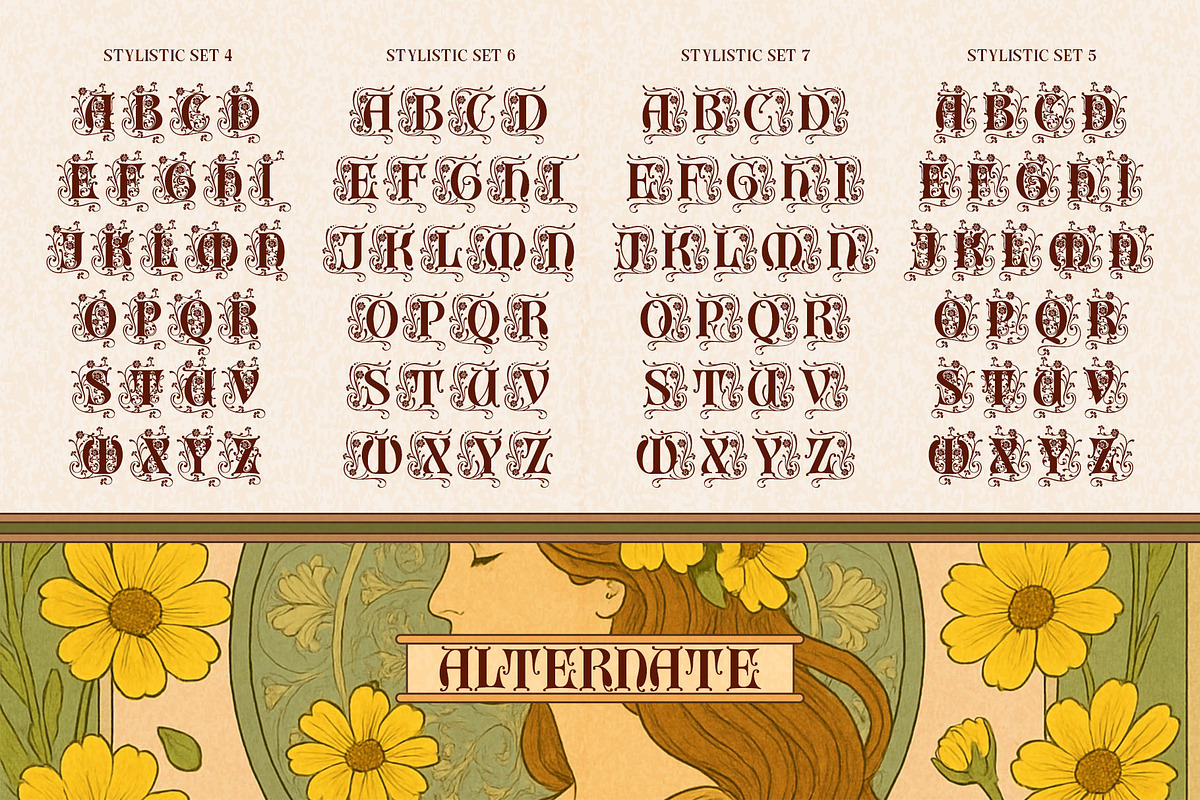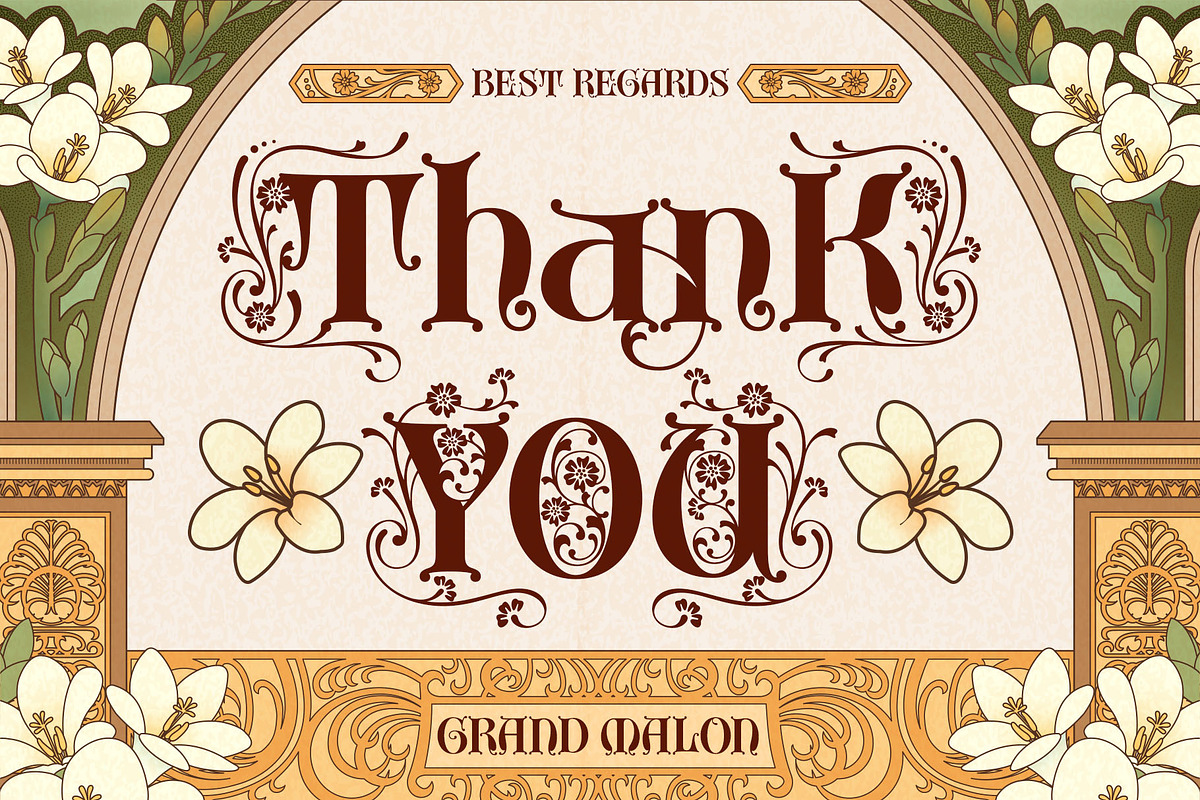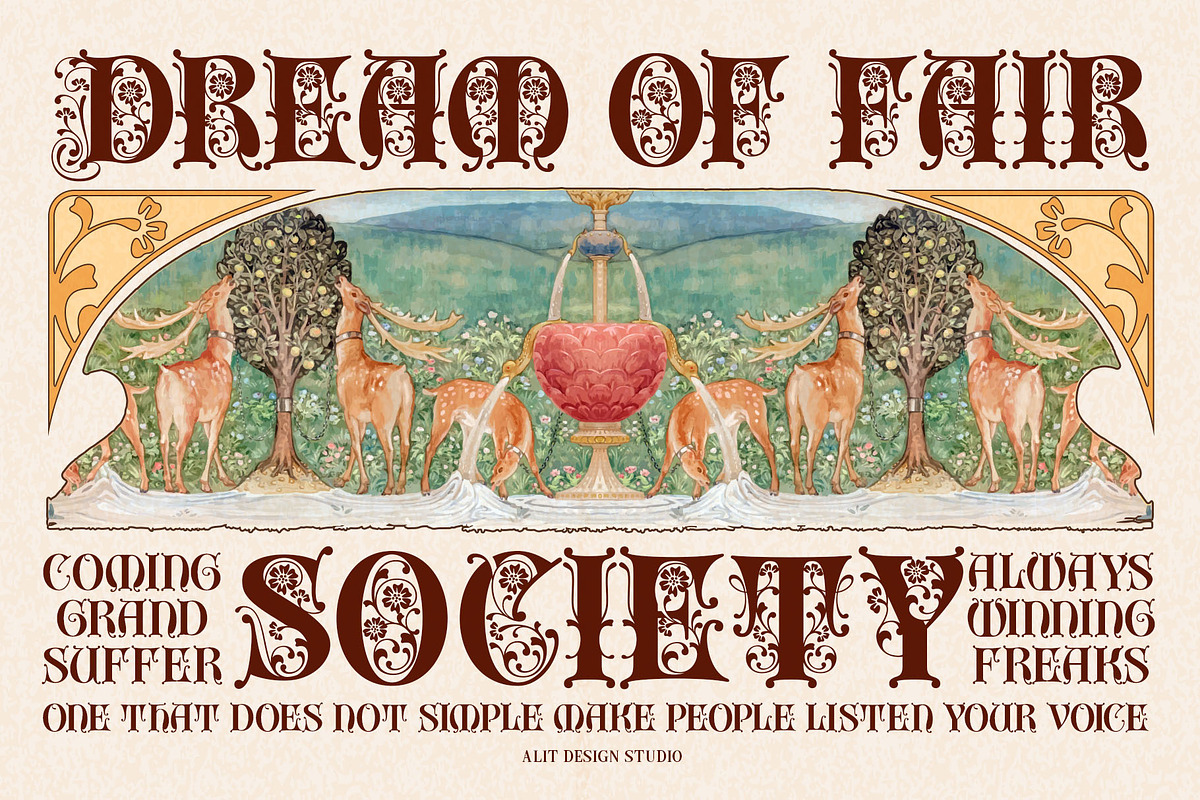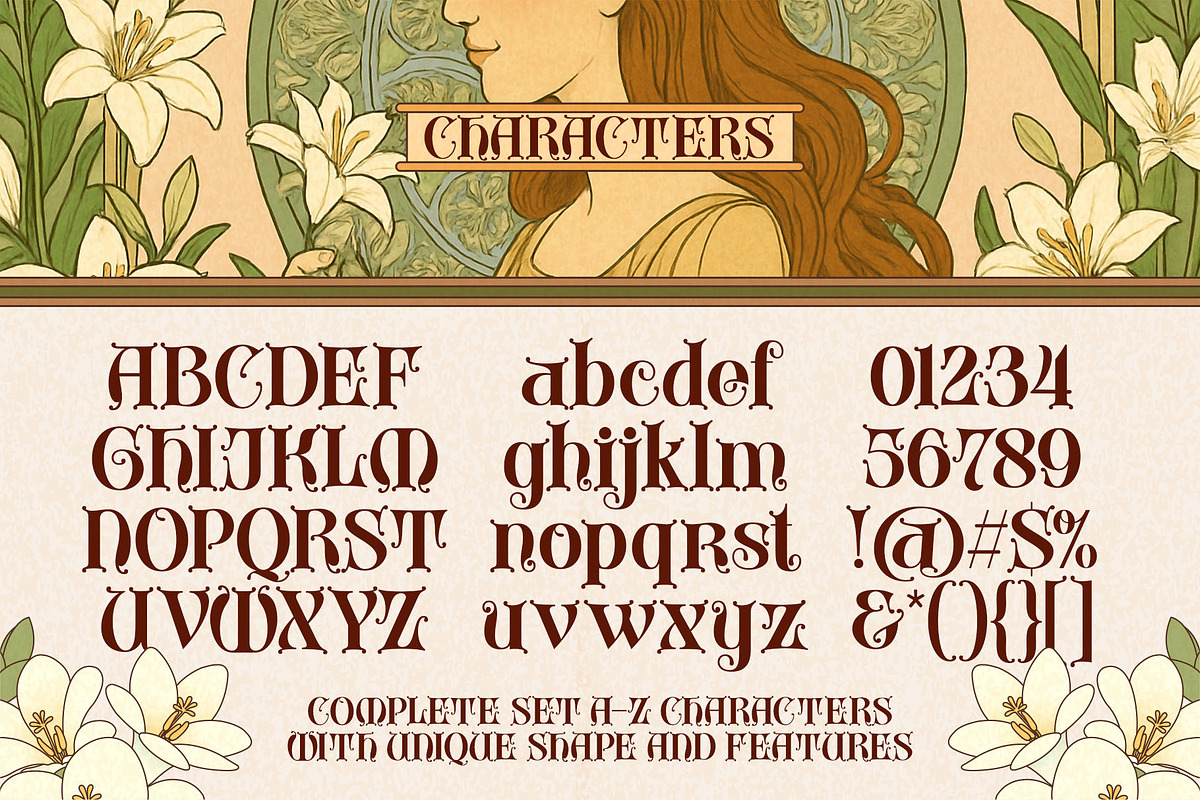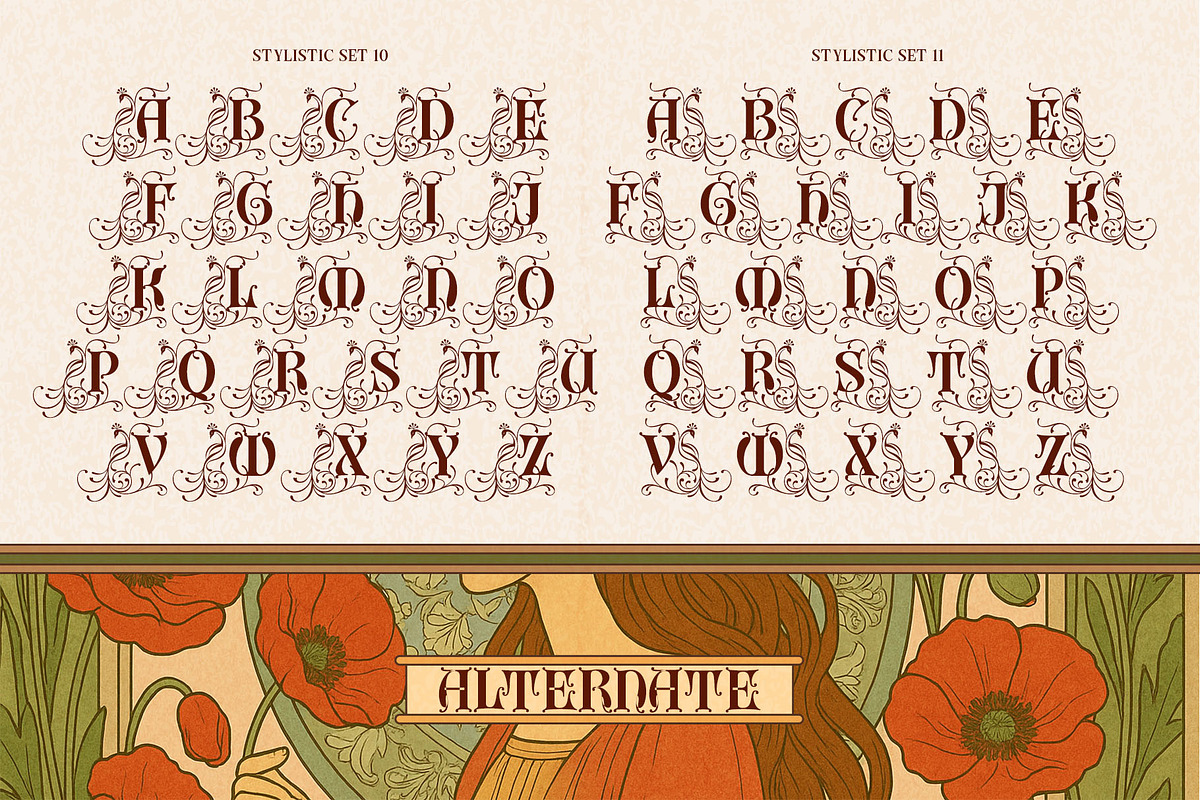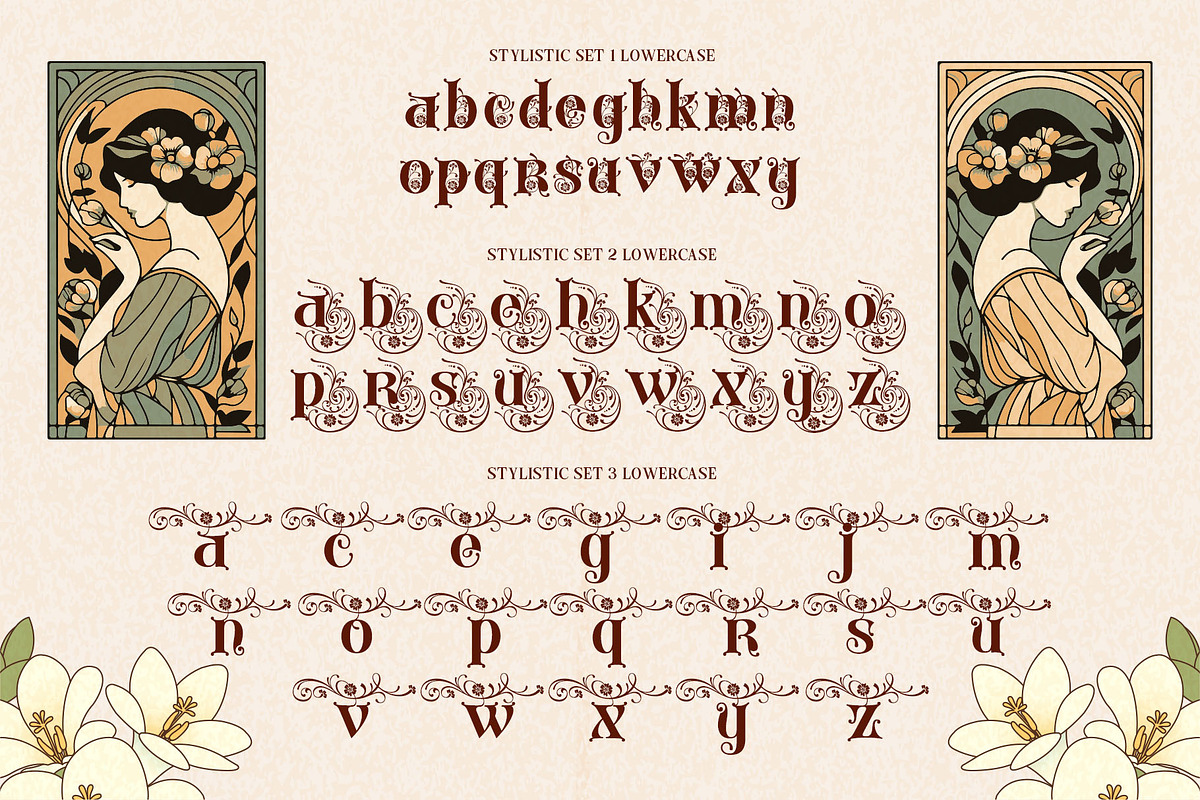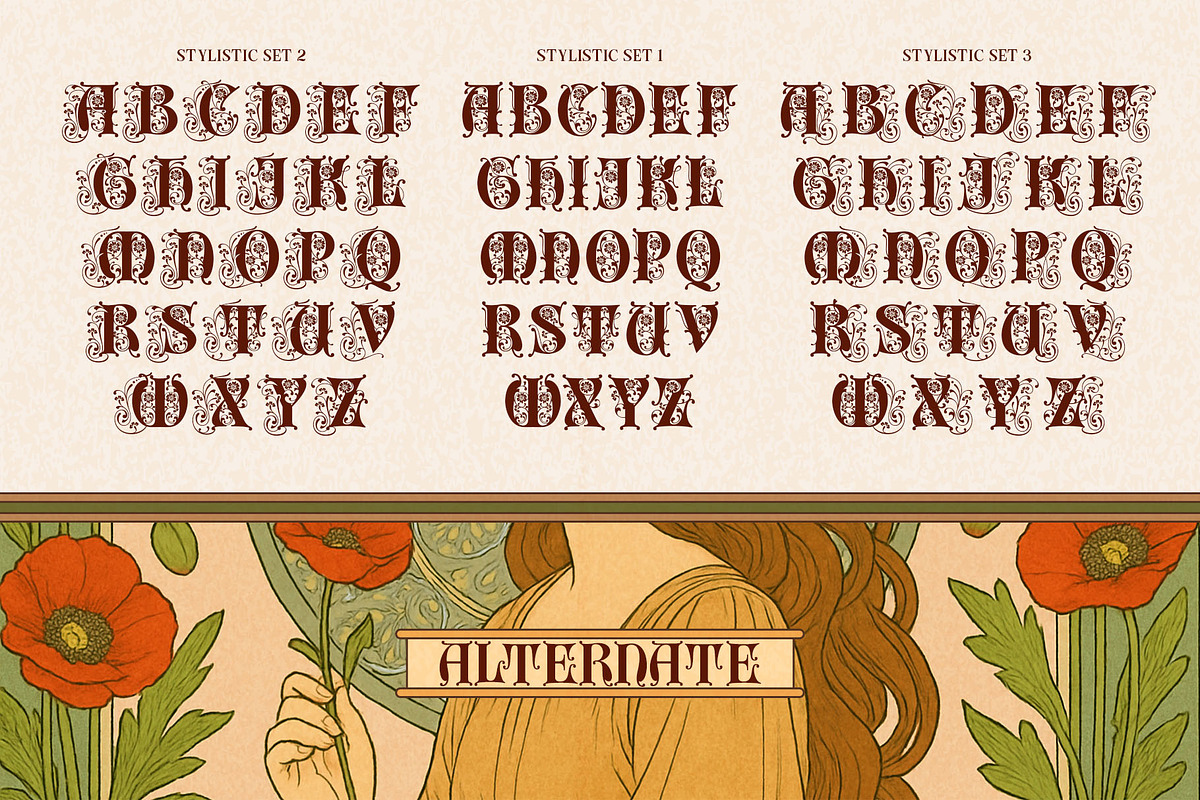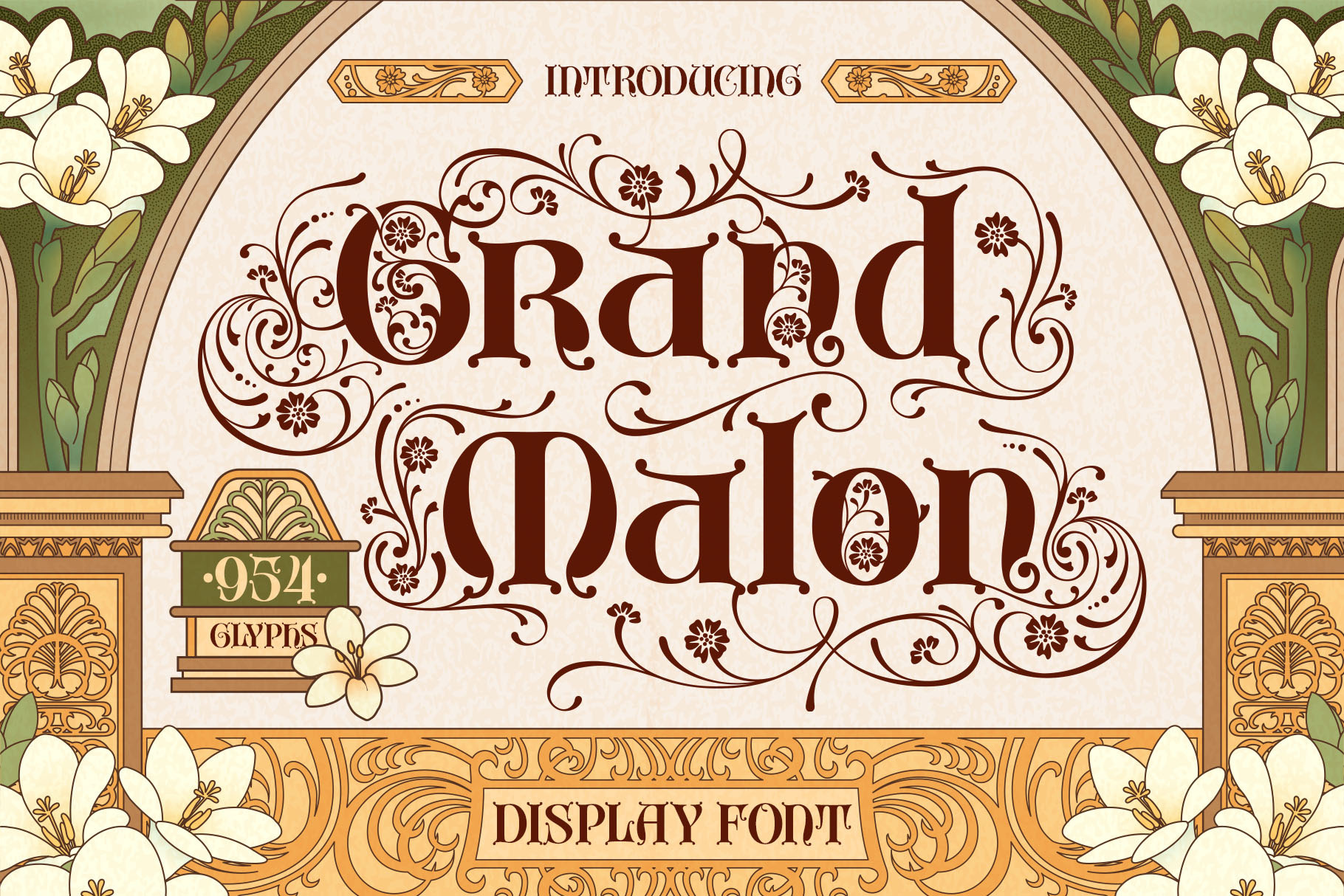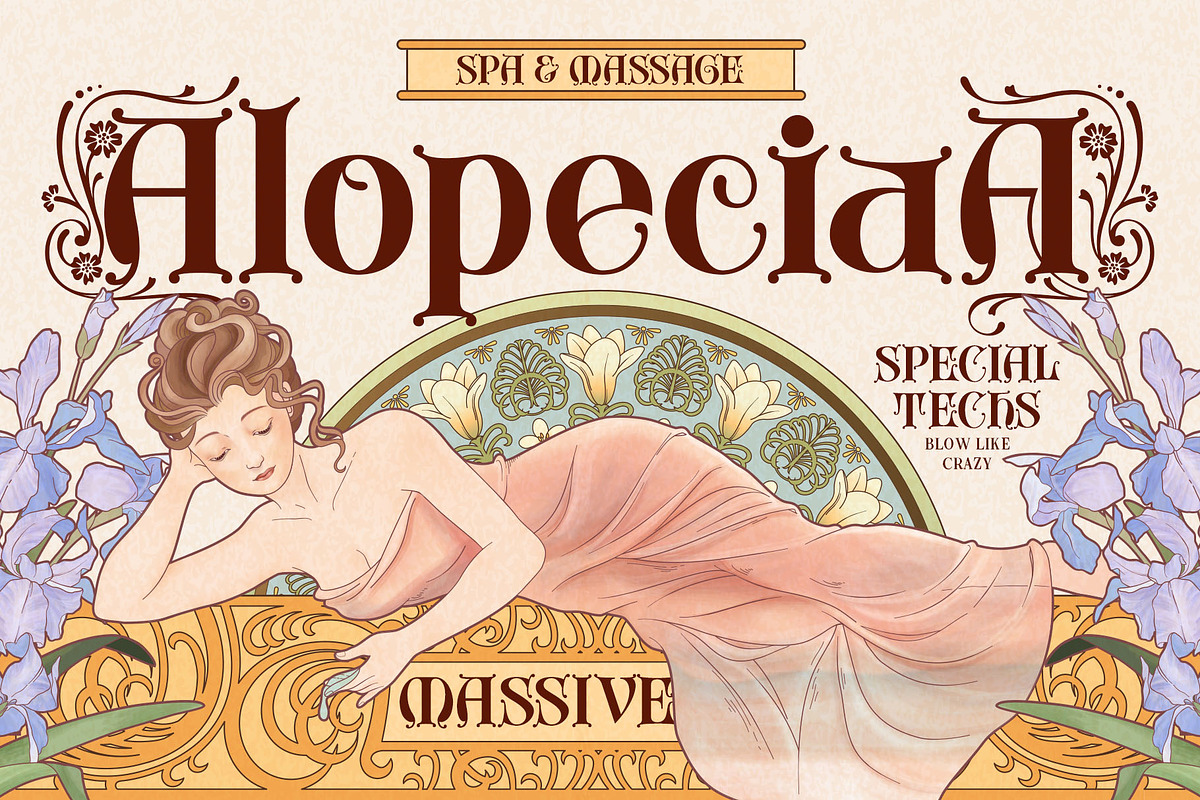
Grand Malon Typeface
Grand Malon - An Exquisite Gothic Display Font
Step into a world of timeless elegance and intricate beauty with Grand Malon, a stunning display typeface that breathes life into the classic Gothic serif style.
Inspired by the ornate typography found in treasured old books and vintage manuscripts, Grand Malon is a masterpiece of digital craftsmanship. Every letter is a work of art, meticulously designed with elaborate details, graceful swirls, and nature-inspired ornamentation. This font is not just a set of characters; it's a gateway to creating designs that are both classic and captivating.
A Symphony of Ornaments
What sets Grand Malon apart is its rich collection of decorative elements. The typeface is adorned with flowing swirls reminiscent of Art Nouveau, delicate floral motifs, and the majestic elegance of peacock feathers. These intricate details are woven into the very fabric of the letters, giving your text an unparalleled level of sophistication and visual appeal.
Unleash Your Creativity with 954 Glyphs
Grand Malon is a powerhouse of versatility, offering an extensive library of 954 glyphs. This vast selection includes a treasure trove of stylistic alternates, allowing you to customize your designs with endless possibilities.
- Abundant Stylistic Sets: With numerous stylistic sets for both uppercase and lowercase letters, you can effortlessly transform the look and feel of your text. From highly decorative capitals to more subdued, elegant lowercase characters, you have the creative freedom to find the perfect expression for your project. (As seen in Stylistic Sets 1-12).
- Alternate Characters & Ligatures: Discover unique alternate characters that add a bespoke touch to your typography. The font also includes beautifully crafted ligatures that ensure a seamless and natural flow between letters.
- Multilingual Support: Reach a global audience with comprehensive language support.
Grand Malon is the ideal choice for projects that demand a touch of class and distinction. Its ornate and readable style makes it perfect for:
- Branding & Logos: Create unforgettable logos for luxury brands, artisans, or special events.
- Invitations & Stationery: Design exquisite wedding invitations, gala announcements, and personal stationery.
- Book Covers & Editorial Design: Capture the essence of fairy tales, historical novels, and fantasy stories.
- Posters & Packaging: Craft eye-catching posters and product packaging that stand out from the crowd.
- Apparel Design: Add a touch of vintage elegance to t-shirts, totes, and other merchandise.
With Grand Malon, you are not just typing; you are arranging flowers with extra care and love for justice. You are composing a visual story that is rich, detailed, and truly extraordinary.